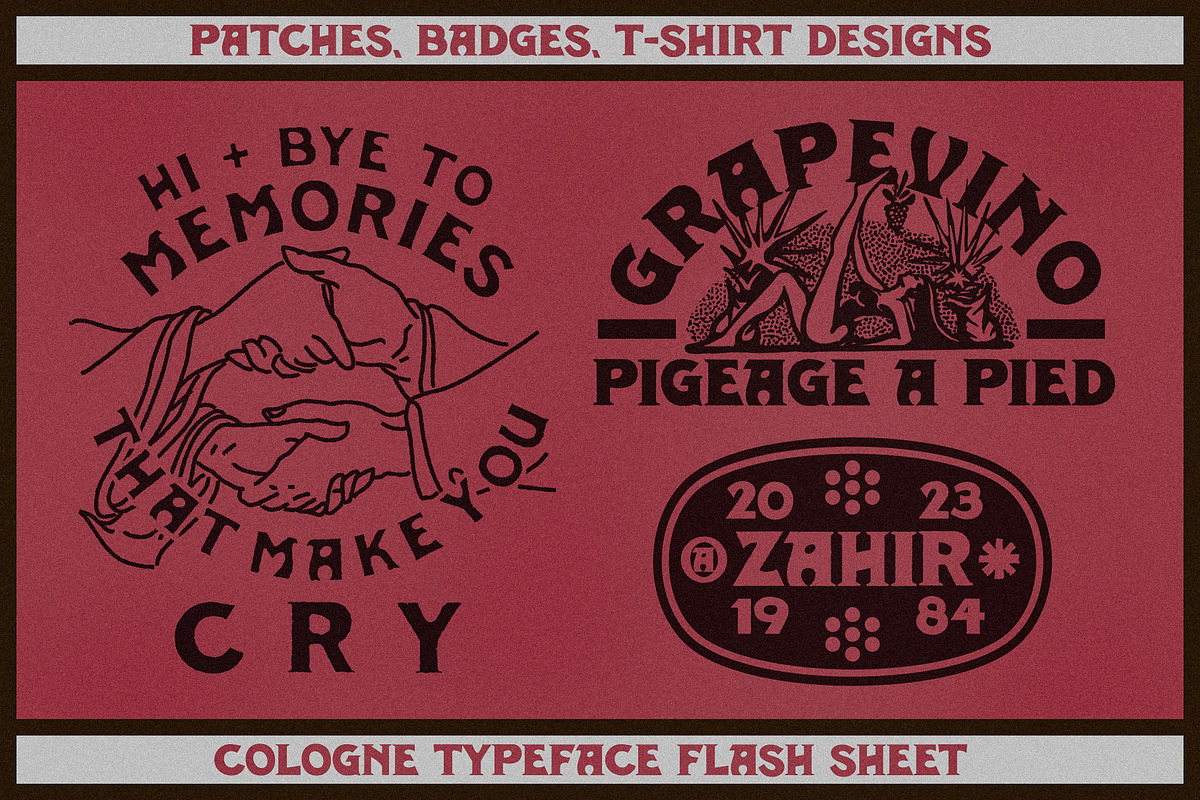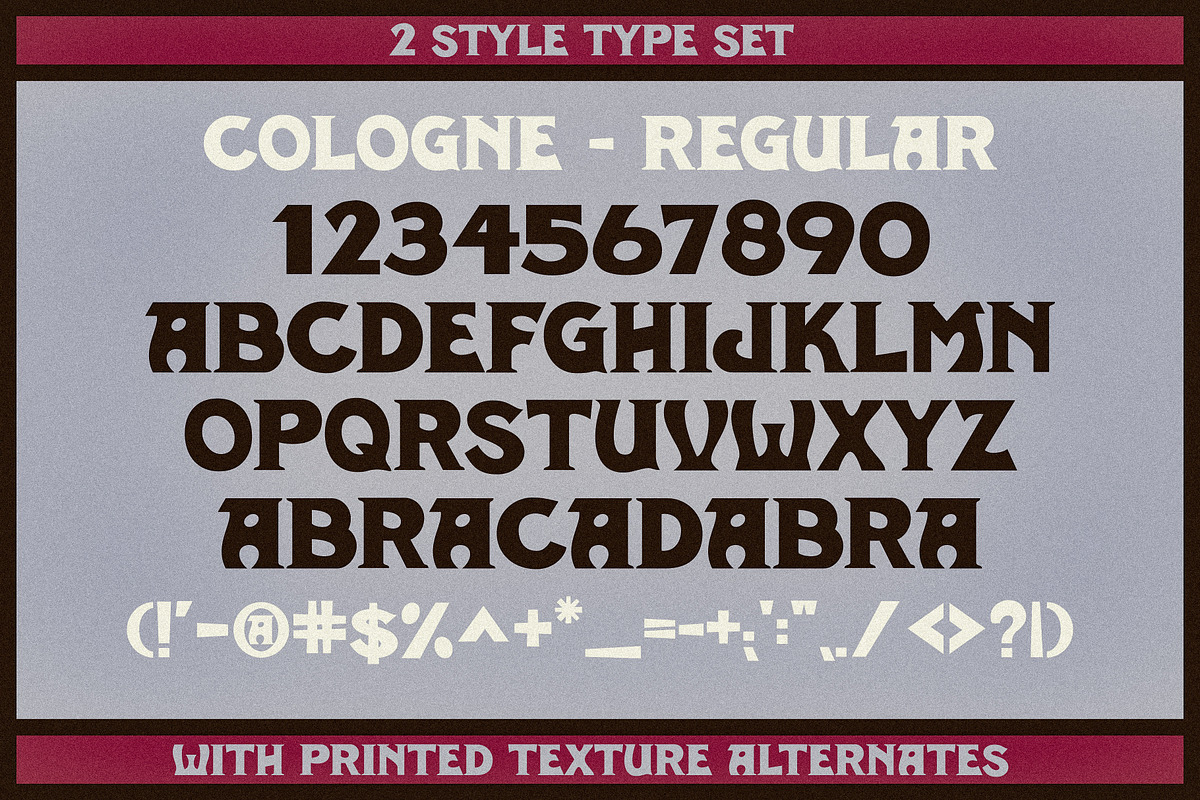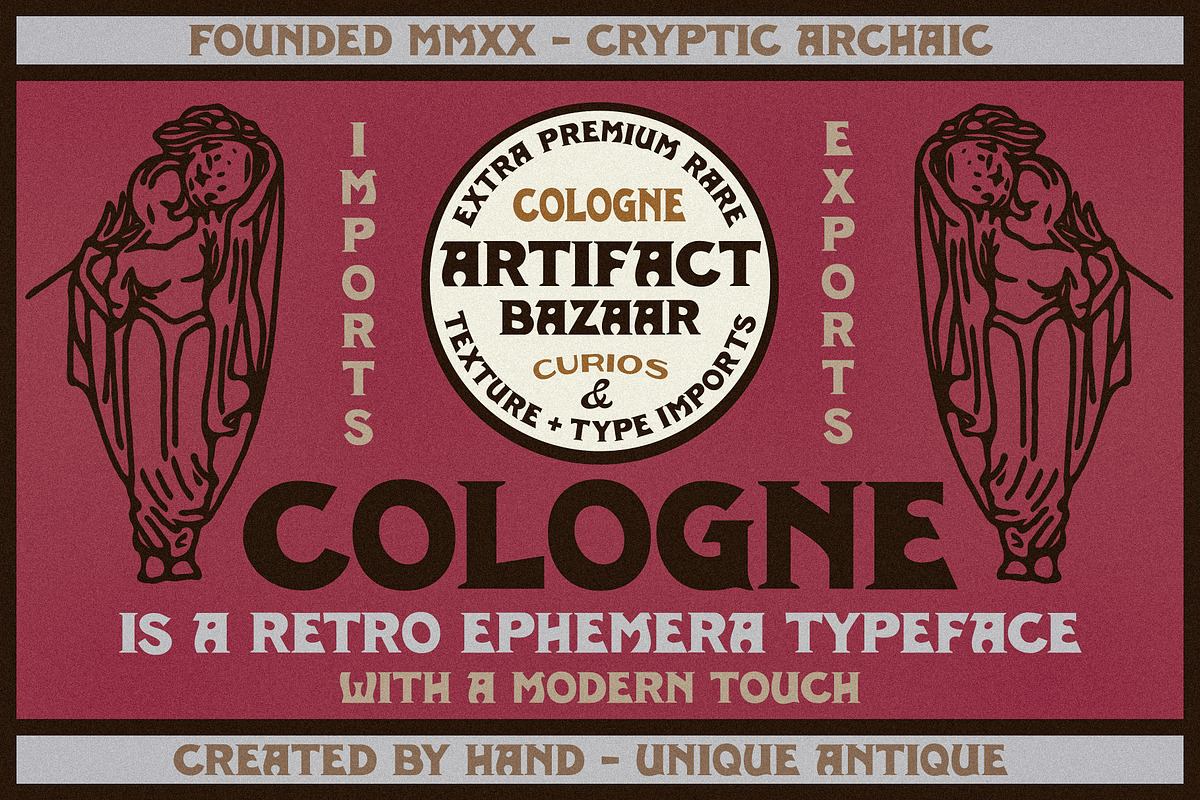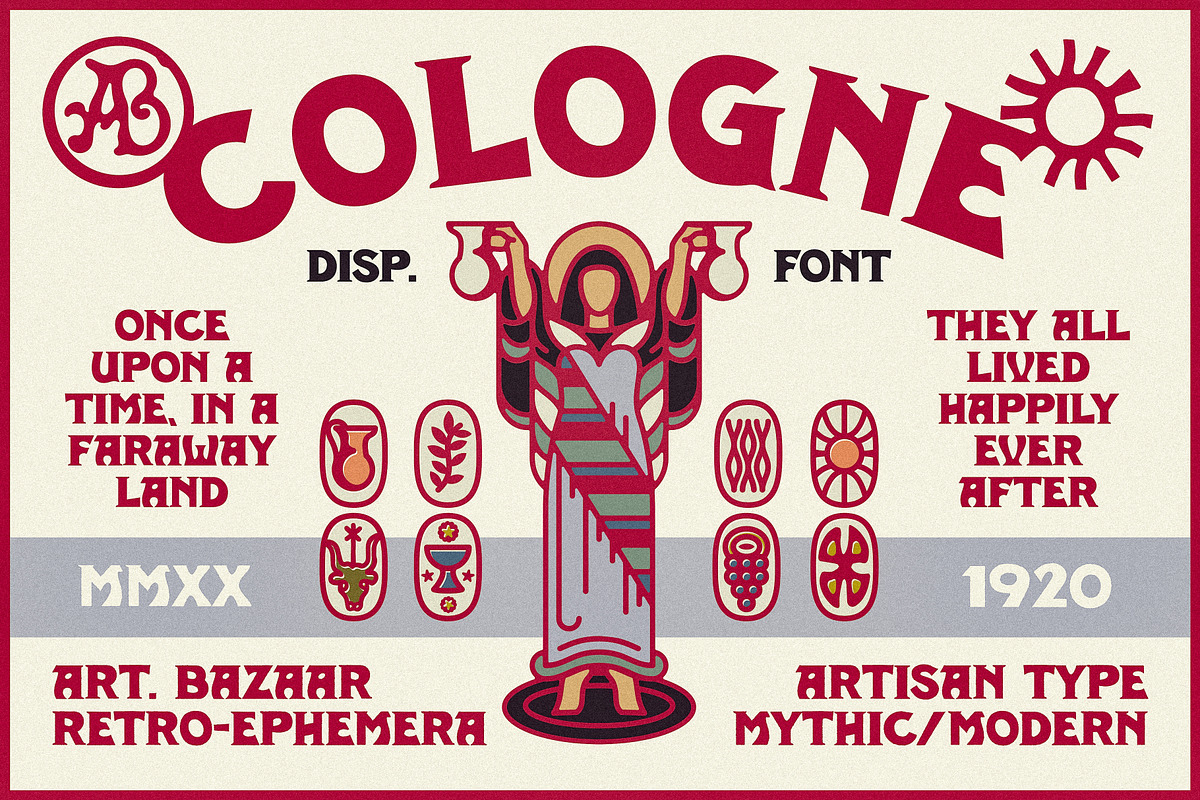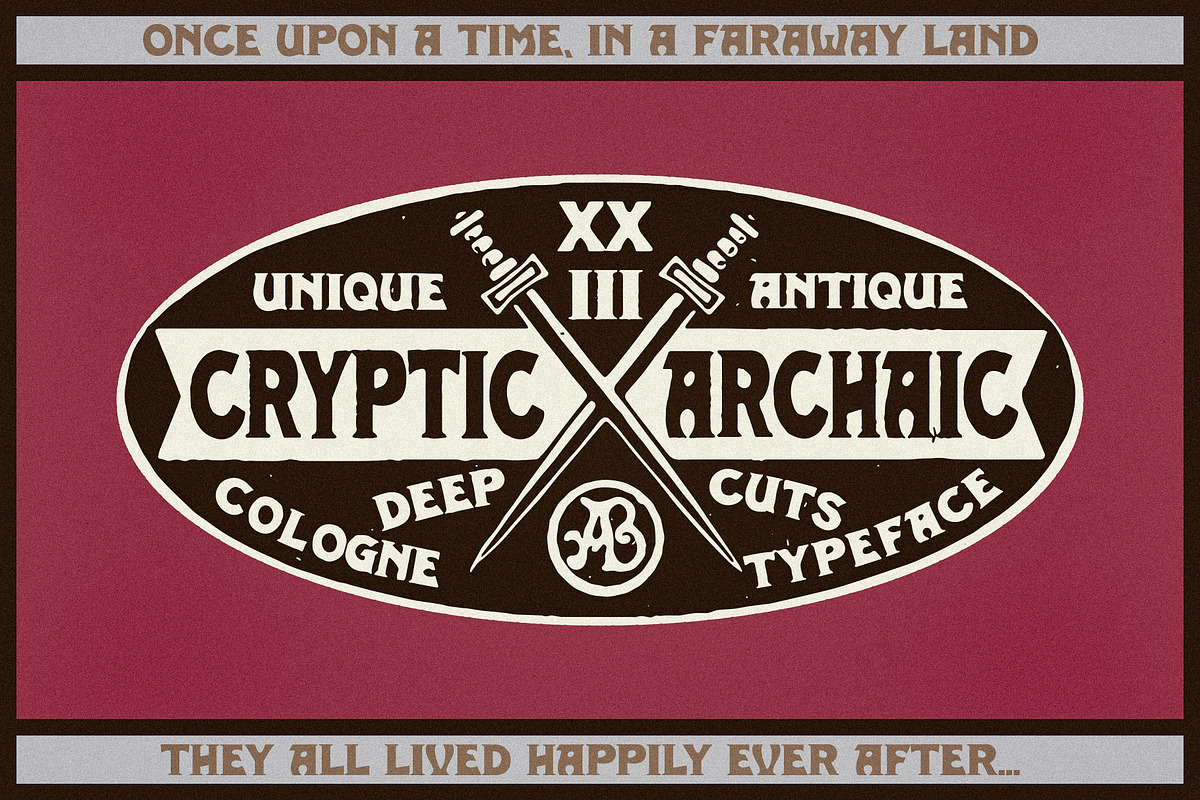
Cologne | Bold Vintage Serif
A heavy-weight vintage serif, Cologne is a bold concoction of cacophony, character, elegance, and esoteric charm. Legibility without losing memorability. One of our go-to AB title and badge fonts.
All numbers, punctuation, special characters
2 Styles